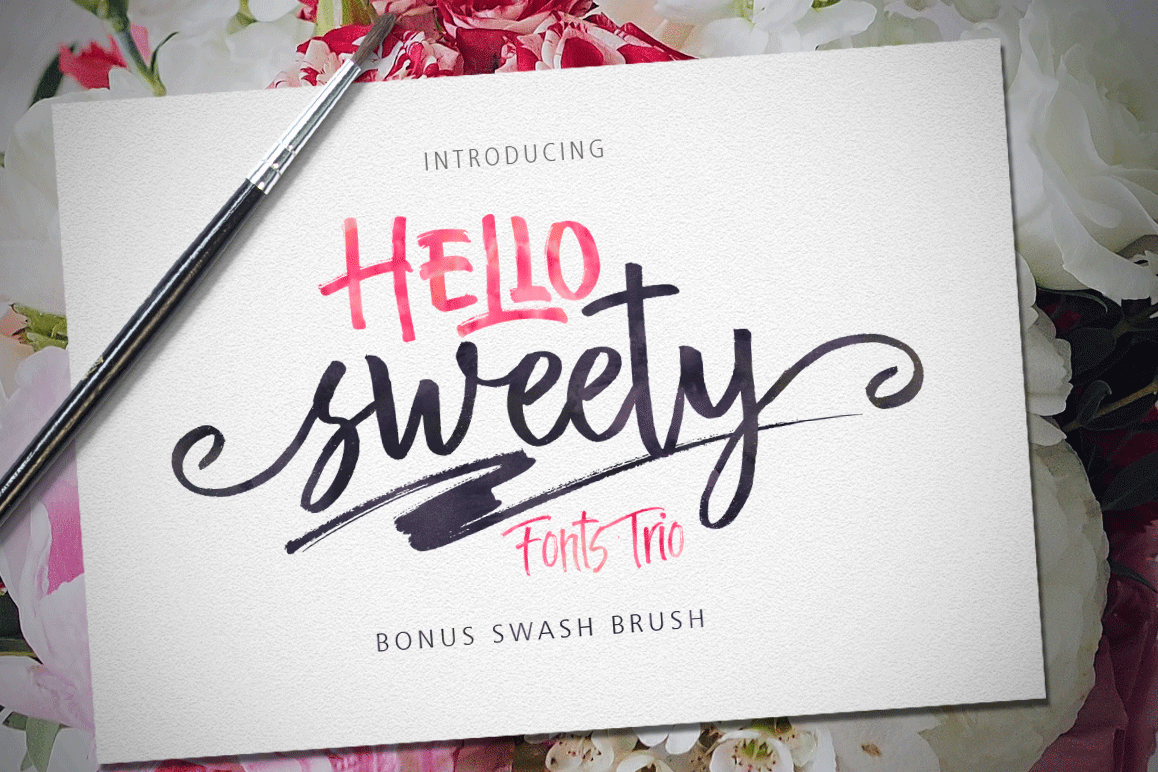
Hello Sweety (Fonts Trio+Swash)
Hello Sweety Brush
Hello Sweety Upcase
Hello Sweety Scrip
swash Hello Sweety
INTRODUCING!!!Hello Sweety (Fonts Trio+Swash)hello sweety are three sets of fonts, it is that the fonts brush that has a different style. This is the perfect choice for personal branding project. Can be used for various purposes.such as headings, logos, wedding invitations, t-shirts, letterhead, lable, news, posters, badges etc. To enable the OpenType Stylistic alternates, you need a program that supports OpenType features such as Adobe Illustrator CS, Adobe Indesign and CorelDraw X6-X7.- Hello Sweety Script is hand drawn letter script with and Lawercase Uppercase letters, numbers and various punctuation, ligature and Alternatives- Hello Sweety Upcase is hand drawn letters that have just Uppercase letters.- Hello Sweety Brush is a hand drawn letter script but it is not contiguous who have and Lawercase Uppercase letters, numbers and various punctuation.Include font files: